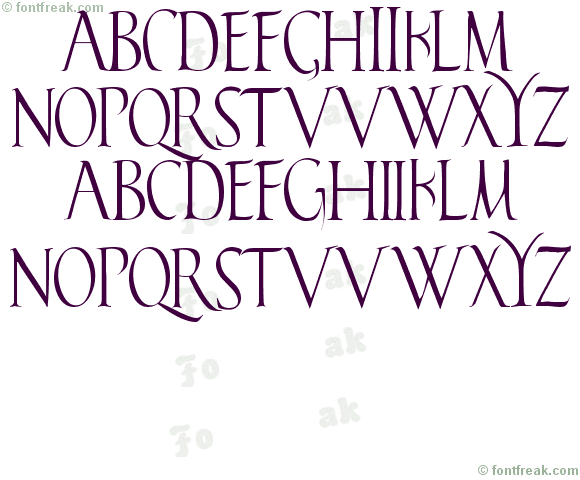
Falconis
Falconis by The Scriptorium is a captivating display font that embodies a unique blend of elegance and artistry. Designed by Michael Scarpitti in 1999, this shareware font is characterized by its striking serif style, which features a combination of sharp and flowing strokes. The contrast between the thick and thin elements gives the typeface a dynamic visual appeal, making it suitable for a variety of creative projects. The spacing is thoughtfully arranged, ensuring readability while maintaining a sophisticated look, and the decorative elements add an air of refinement that captures attention.
This font excels in several use cases, including wedding invitations where its elegance can add a touch of romance, movie posters that require a dramatic flair, and restaurant menus that aim to impress diners with a stylish presentation. Additionally, Falconis is perfect for branding materials, helping small business owners create a memorable identity, and for content creators looking to elevate their digital designs.
The target audience for Falconis includes graphic designers seeking a distinctive typeface, small business owners wanting to enhance their marketing materials, and content creators aiming for an artistic touch in their work. Its versatility allows it to adapt to various contexts, making it a valuable addition to any designer’s toolkit.
What sets the Falconis font apart is its ability to combine functionality and aesthetics seamlessly. It offers a playful yet sophisticated character, making it not only visually striking but also highly usable across different mediums. For those interested in exploring this unique typeface, a Falconis font free download provides an opportunity to elevate your design projects with a touch of elegance and creativity.